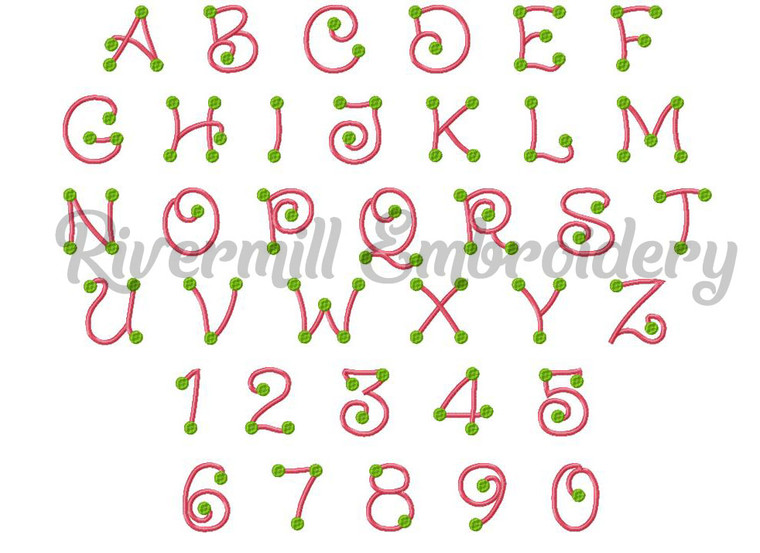
Dots 2 Color Machine Embroidery Font Alphabet
This set comes with upper case letters and numbers 0-9 in 3 sizes:
Each letter is two colors - the dots are one color and the "legs" are the second color.